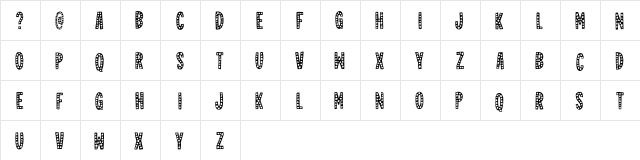
Jealous Mint DEMO Regular
| Designer | Jakob Fischer / pizzadude.dk |
Design Context for Jealous Mint DEMO Typeface
Jealous Mint DEMO is a composed and adaptable typeface that performs quietly and consistently across a wide range of design contexts.